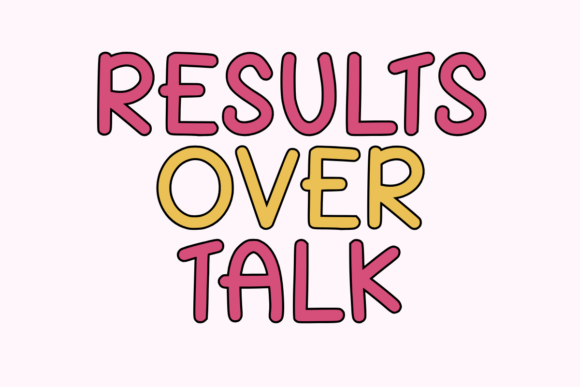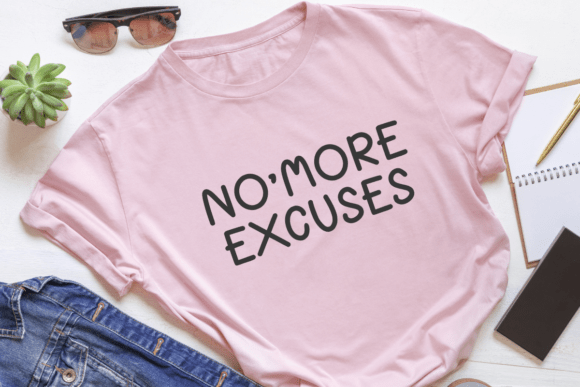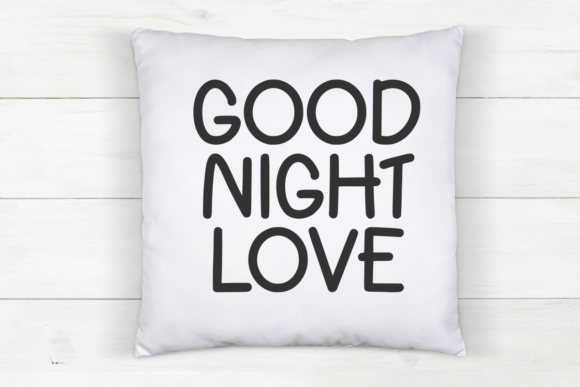
Introduction to Laser Letter Font
Have you ever found yourself browsing through a craft store, surrounded by colorful papers and ribbons, and suddenly you’re inspired to create a handmade card for a special occasion? That’s exactly what happened to many of us, and it’s moments like these that remind us of the joy of crafting. As designers, we’re always on the lookout for the perfect design resources to bring our creative projects to life, and that’s where the Laser Letter Font comes in.
This charming sans serif font is designed to evoke a sense of warmth and friendliness, making it perfect for craft projects, planners, and DIY designs. With its smooth curves and simple strokes, the Laser Letter Font is not only aesthetically pleasing but also incredibly versatile, allowing designers to create high-quality graphics and designs with ease.
Key Features of Laser Letter Font
- High-quality, vector-based design resource ideal for creative projects
- Includes a range of stylish and modern letterforms, perfect for adding a touch of elegance to your design
- Designed with precision and attention to detail, ensuring crisp and clear typography in any application
- Perfect for use in graphic design, digital art, and other creative pursuits where high-quality typography is essential
Honest Review: Laser Letter Font
What works well: ✨ The font is incredibly versatile, making it perfect for a variety of applications. The clean, modern design makes it easy to read and the transparent background adds an extra layer of flexibility. The font is also highly customizable, allowing me to adjust the size, color, and style to fit my needs.
- High-quality design with a modern aesthetic
Overall, I’m impressed with the Laser Letter Font and would definitely recommend it to fellow designers. Its ease of use, high-quality design, and versatility make it a valuable addition to any design resource collection.
Laser Letter Font
Design Resource for Creative Projects
The Laser Letter Font is a high-quality design resource that can add a unique touch to your creative project. With its distinctive style and transparent background, it’s perfect for designers looking for a free download to elevate their work.
Tips for Getting the Most Out of Laser Letter Font
To get the most out of the Laser Letter Font, use it sparingly to add emphasis to your text. You can also experiment with different font sizes and colors to create a unique look.
The Laser Letter Font is commonly used in designs such as invitations, posters, and social media graphics. It’s also a great choice for adding a touch of whimsy to your blog or website.